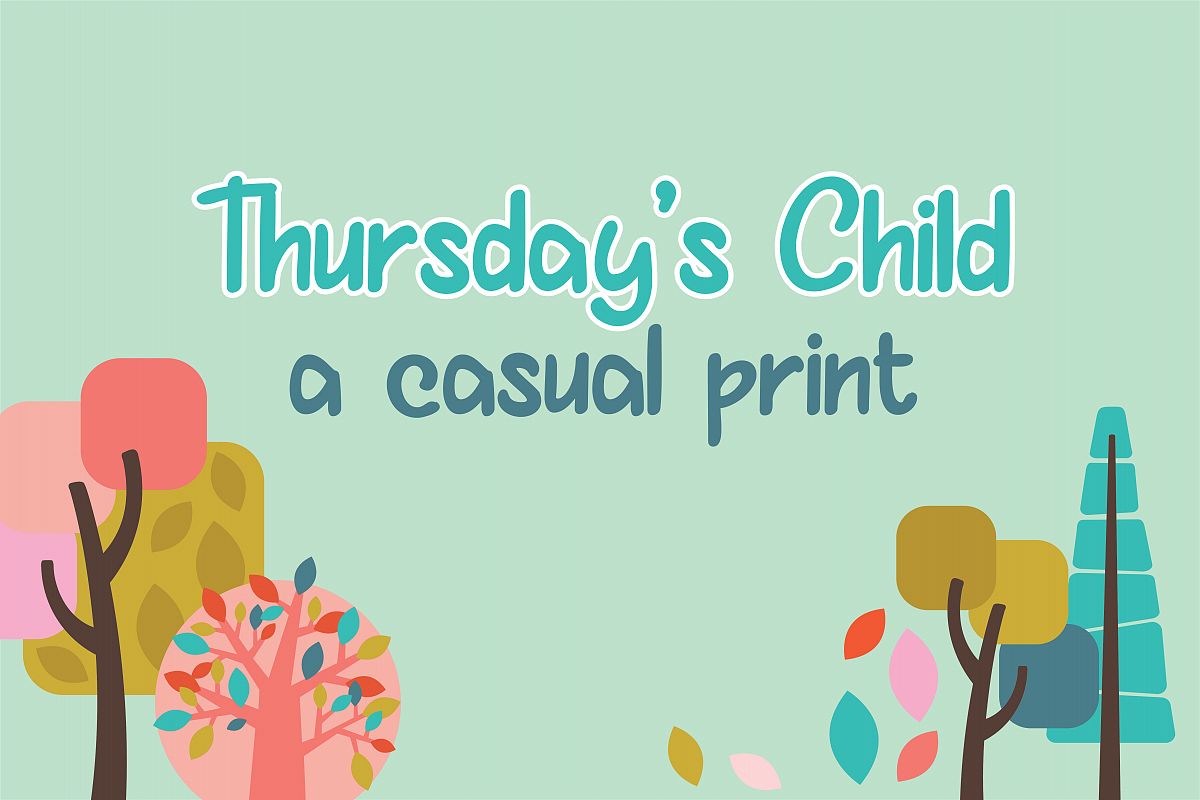
PN Thursday's Child
This casual print font is a simple printed font that looks great in all caps or mixed cases. It's a great font to add youthfulness to a project.